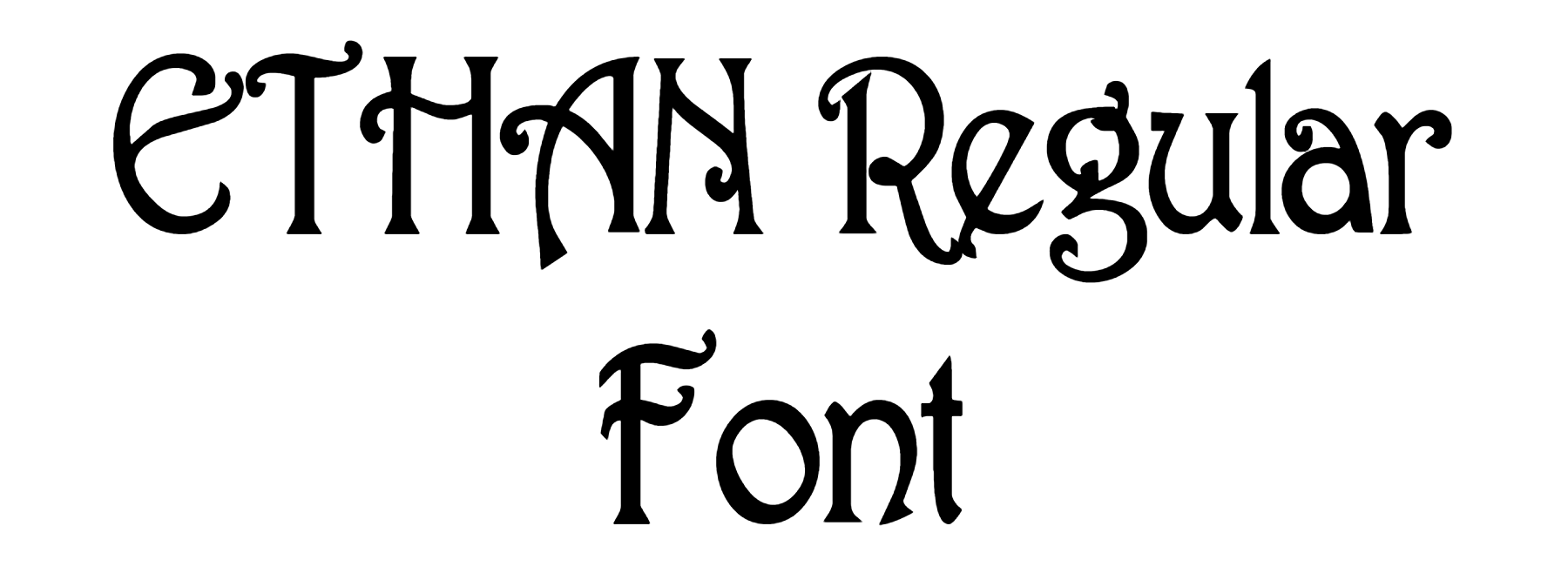
ETHAN Regular Font Preview
ETHAN Regular
ETHAN Regular is a fancy font (1997). Bold and full of character, it's built to stand out rather than blend in. You can download it for free and test it with your own words in the preview above.
What You Can Type With ETHAN Regular
With complete upper and lowercase letters and all ten digits, ETHAN Regular is ready for real wording, not just a single headline. Common punctuation such as &, !, ? and @ is included as well. It has 51 accented letters, but not the full set for Spanish or French, so test any non-English words first.
Where ETHAN Regular Works Best
Think of ETHAN Regular for posters, logos and eye-catching headlines. The file has no kerning data, so in logos and big titles check pairs like AV, To and Wa and tighten the spacing by hand. Use it for one standout word or headline and let simpler fonts handle the rest.